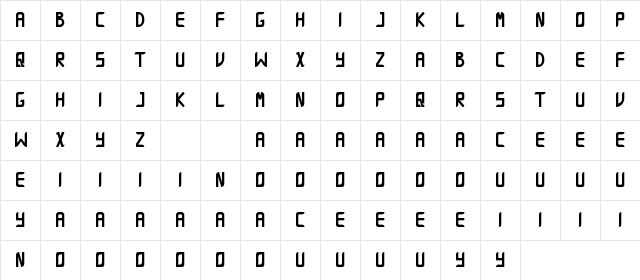
Agrandize Demo Sans Regular
| Foundry | NihStudio |
| Designer | Yasri Ainun N & Sarah Suci P |
Design Context for Agrandize Demo Sans Typeface
Agrandize Demo Sans offers clean, dependable letterforms without strong stylistic allegiance, making it a practical choice for designers who need flexibility.